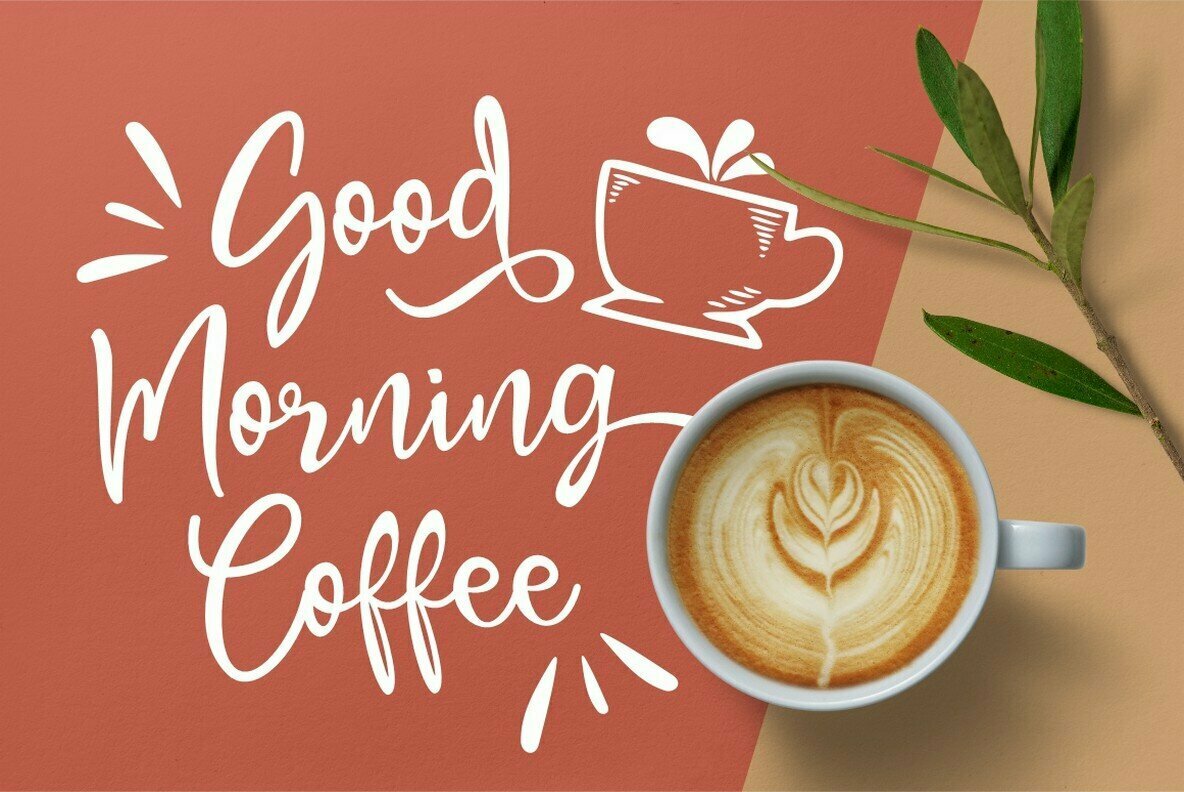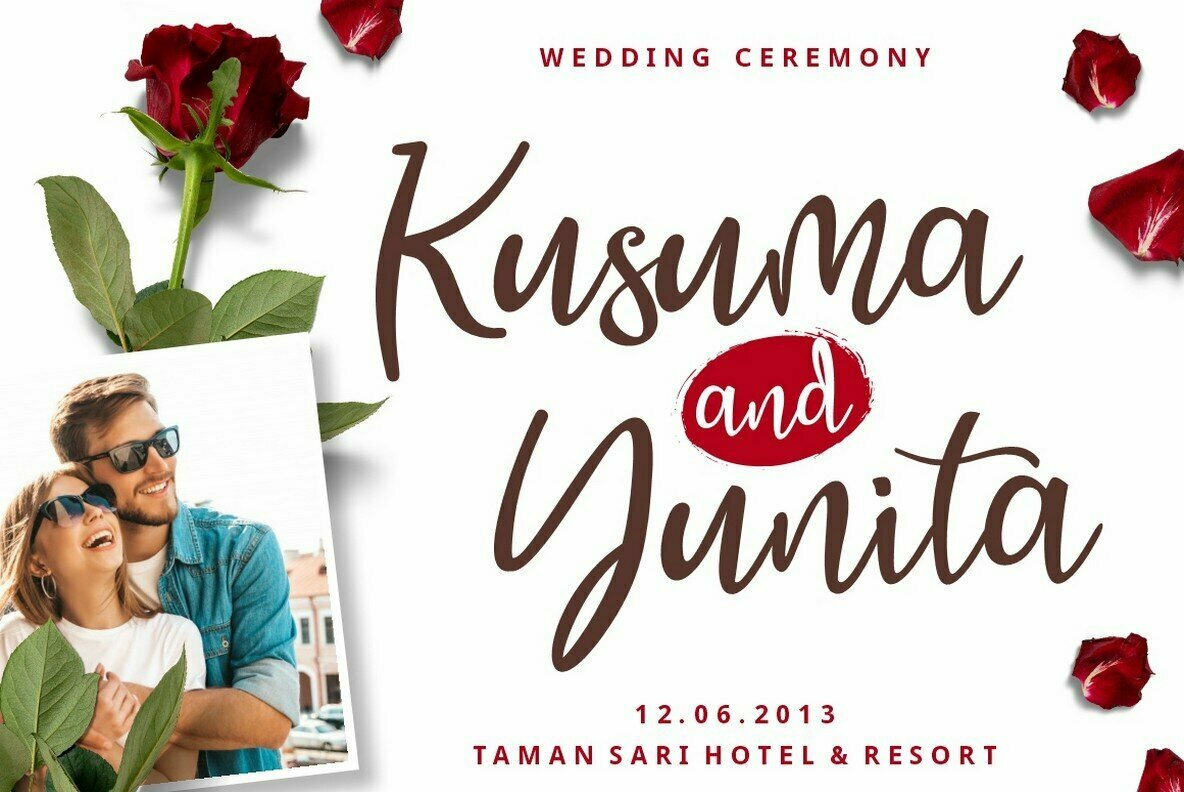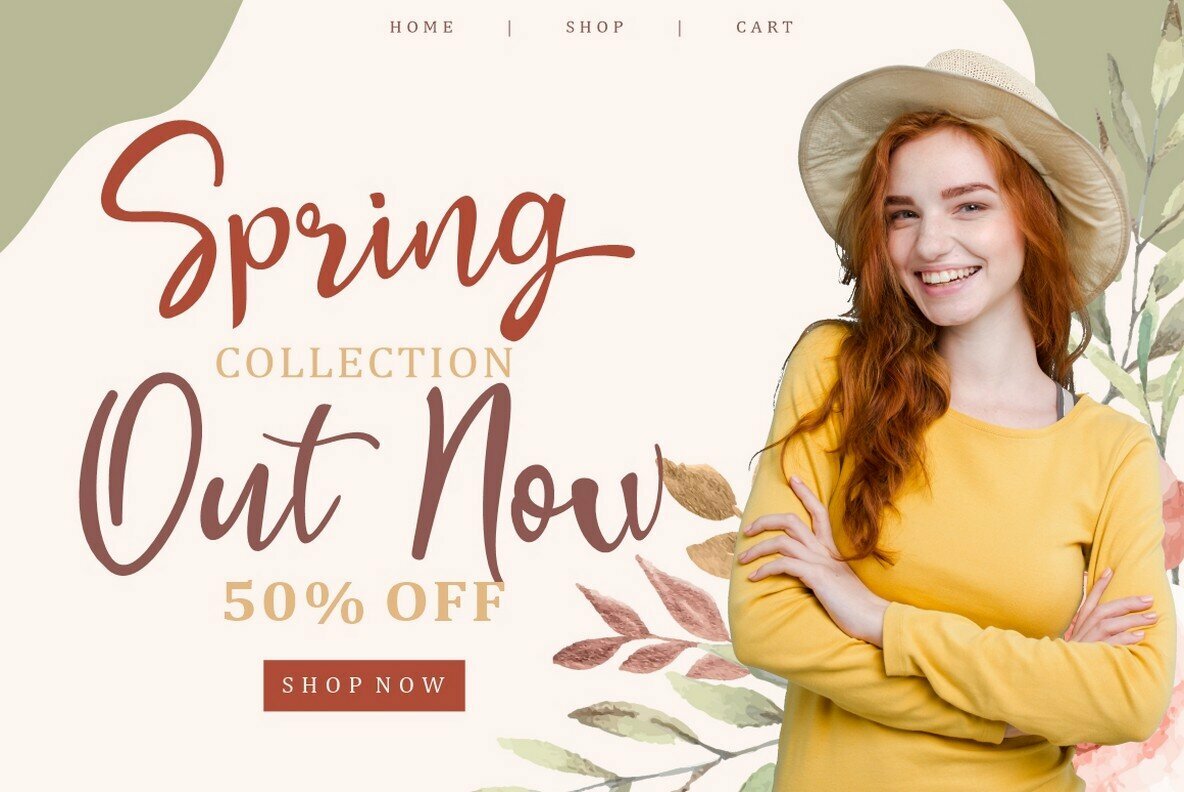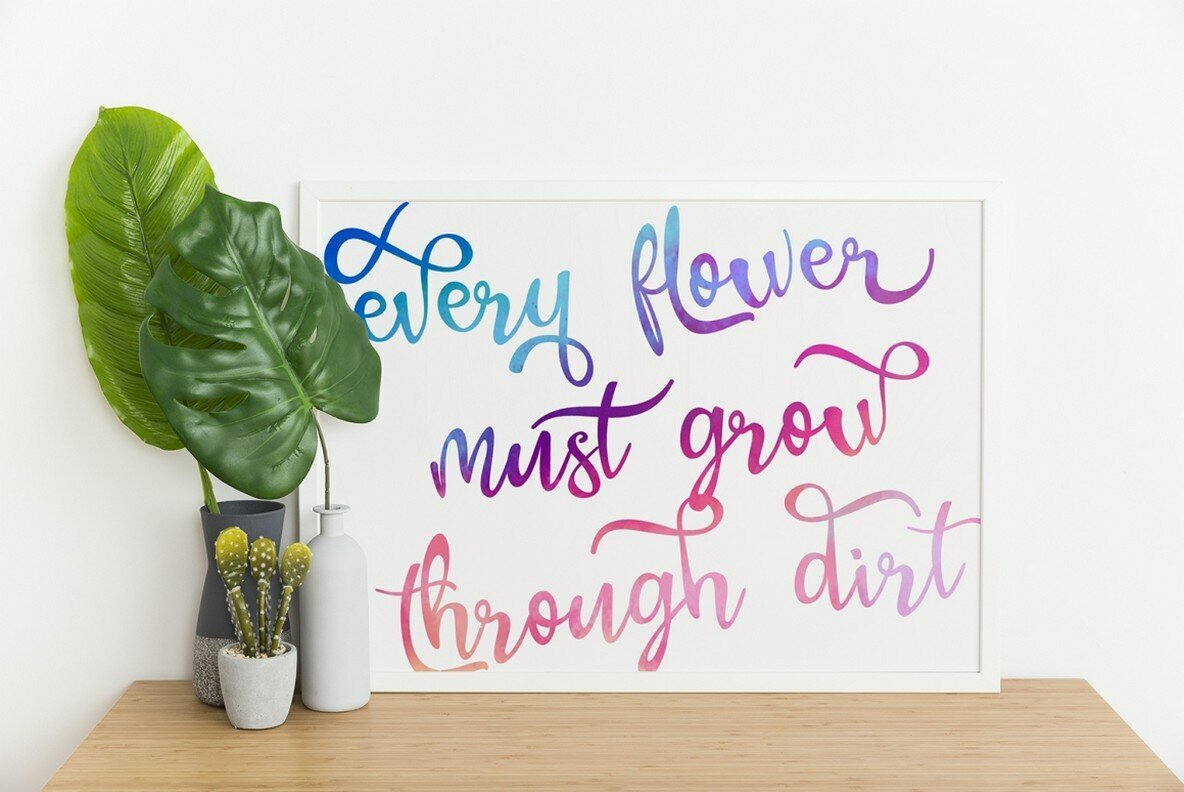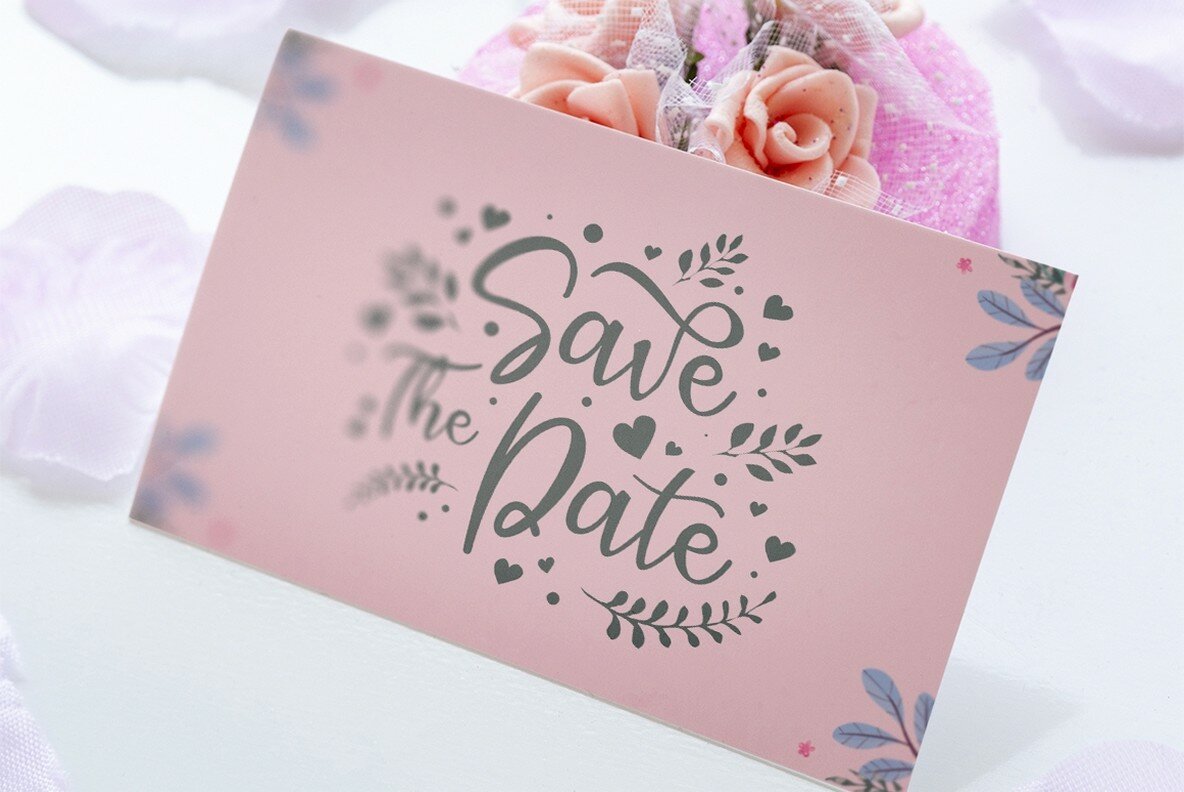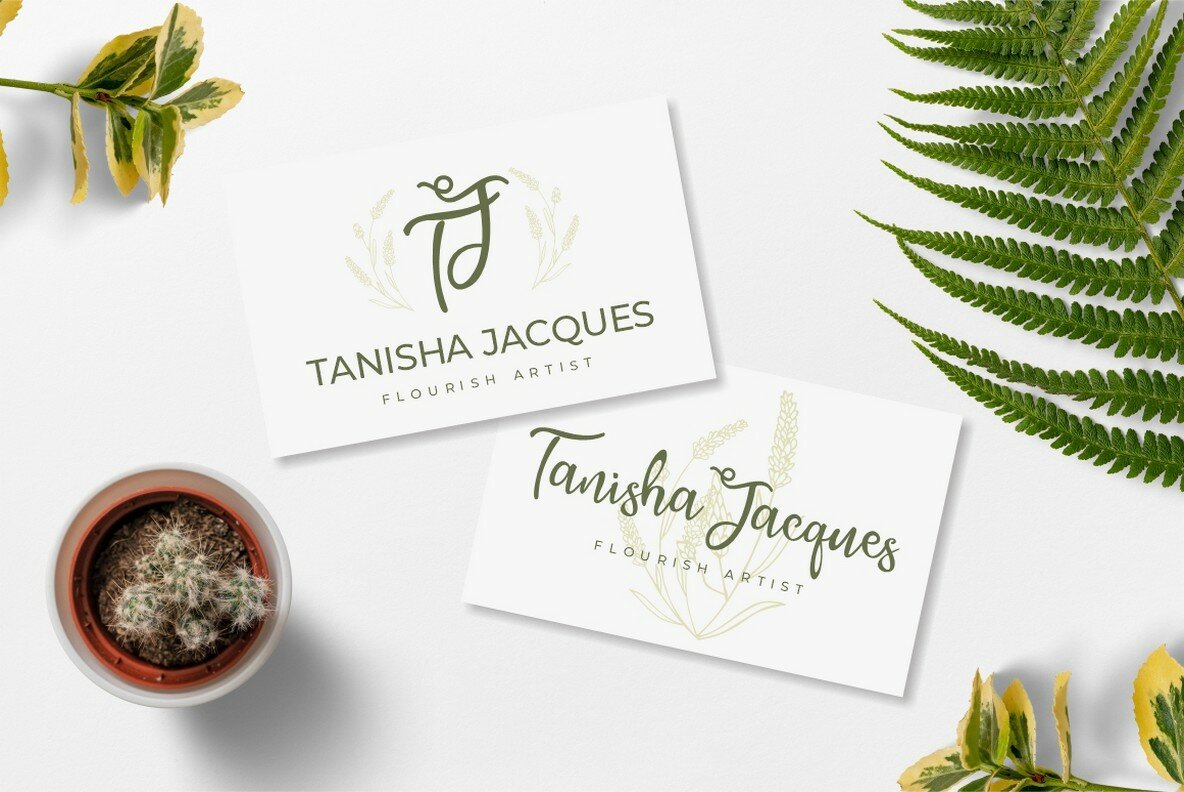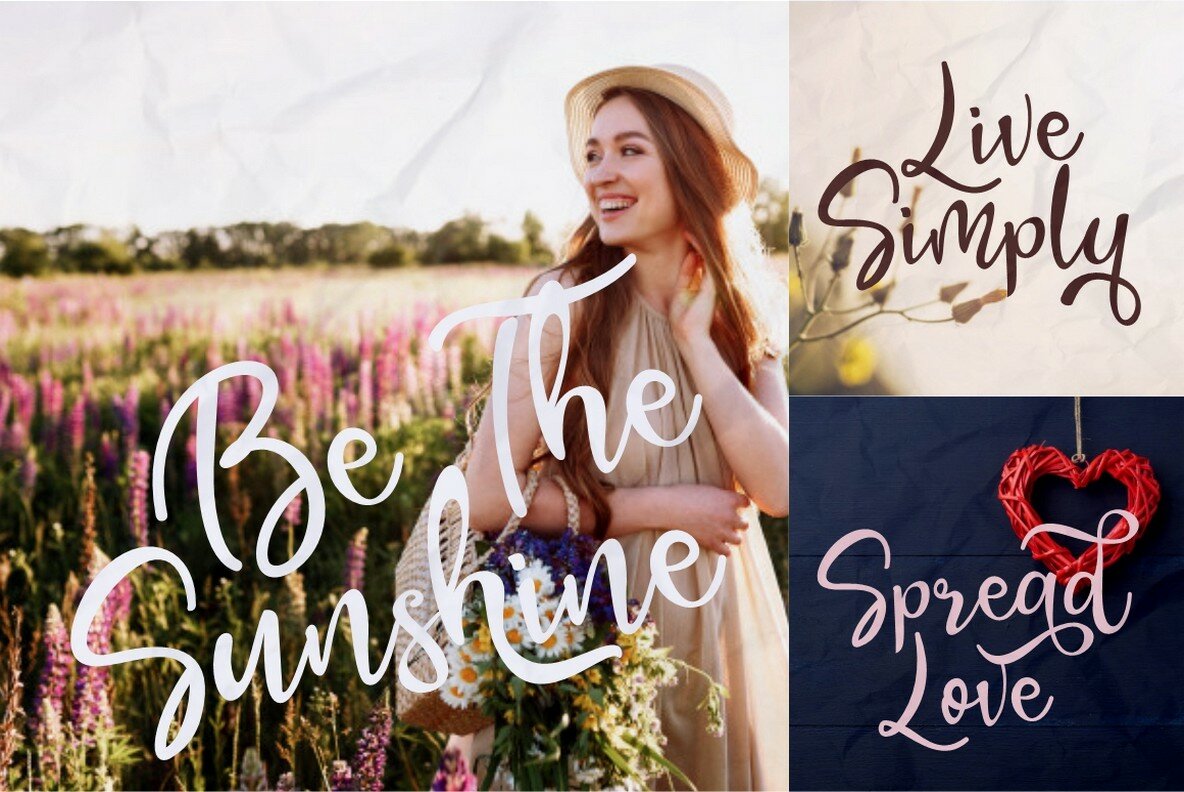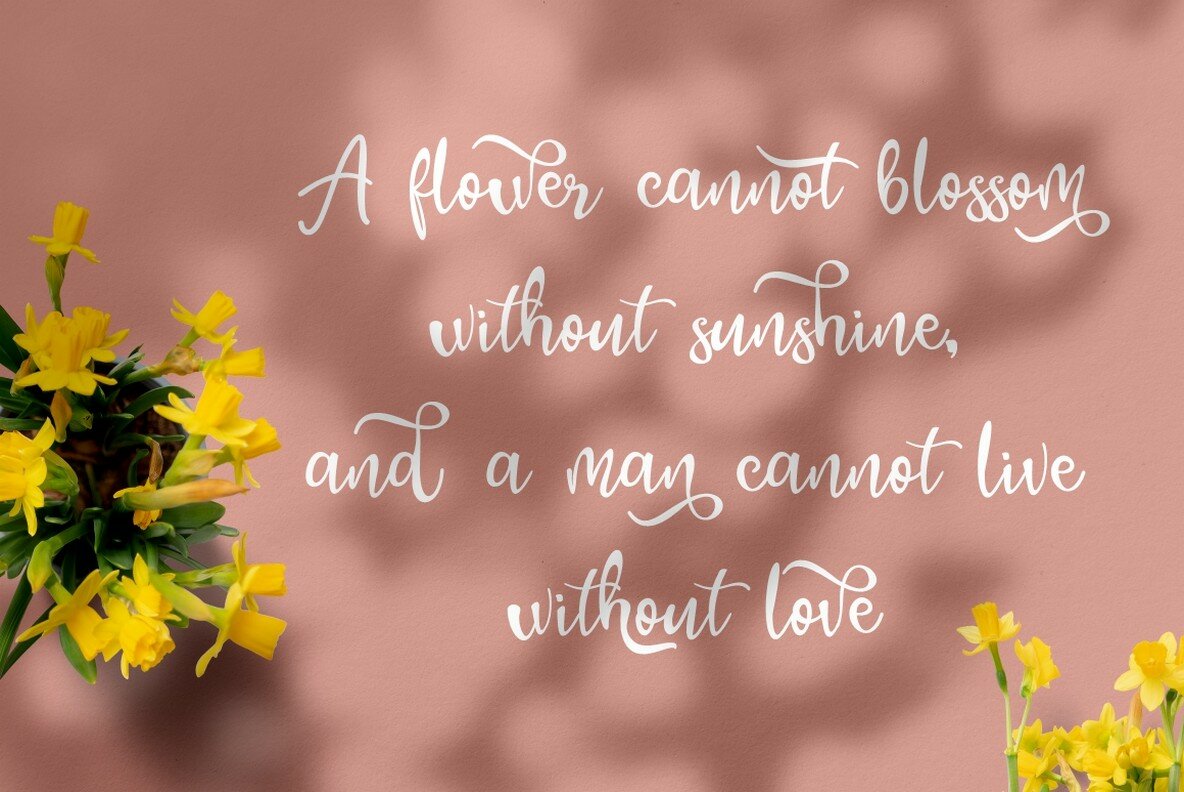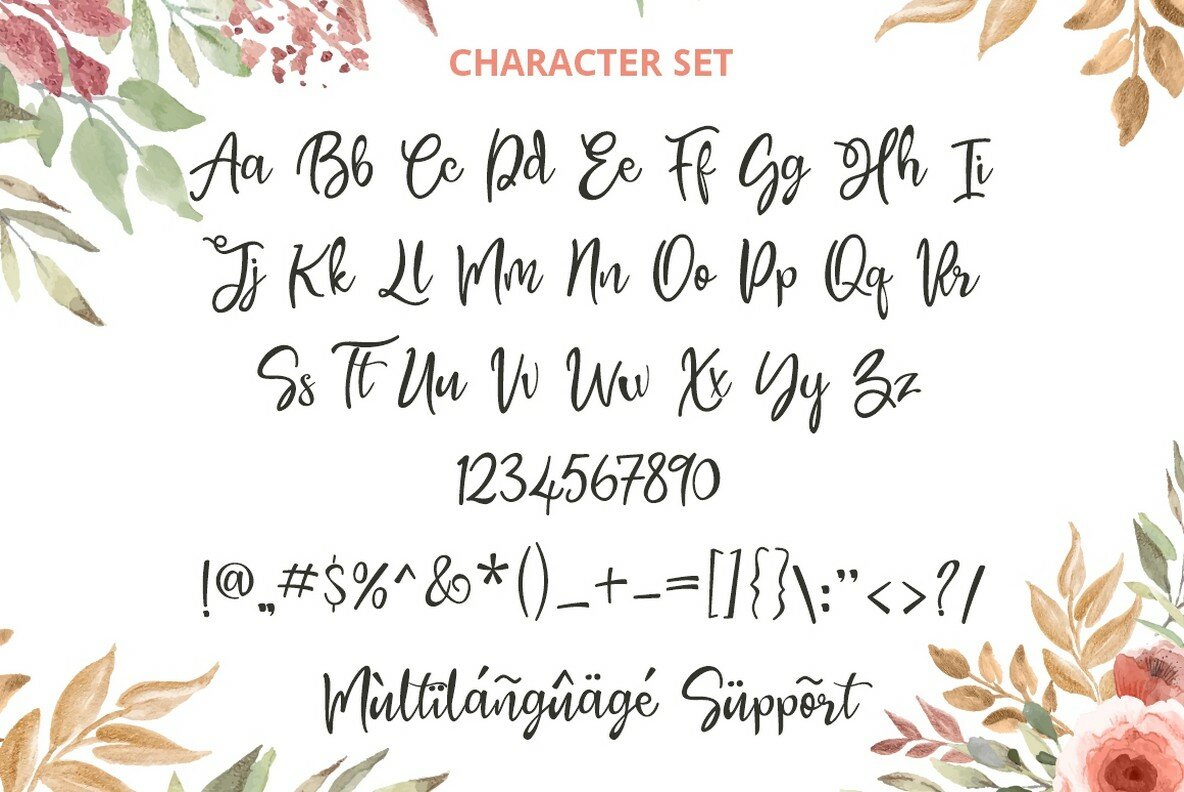
Pearlye Font
Pearlye
Pearlye offers a delightful blend of bouncy script and whimsical charm, making it an exceptional choice for various creative endeavors. Its versatility shines in projects such as crafting, logotype creation, and lettering compositions. Pearlye also adds a unique touch to wedding invitations and fashion projects, setting a playful tone that stands out. Pearlye is not just about style; it provides functional features that cater to a wide selection of design needs. Ideal for book cover designs, magazine typography, cards, packaging, posters, and branding, it ensures your projects radiate a compelling visual appeal. Features:Pearlye: A Playful Script for Creative Projects